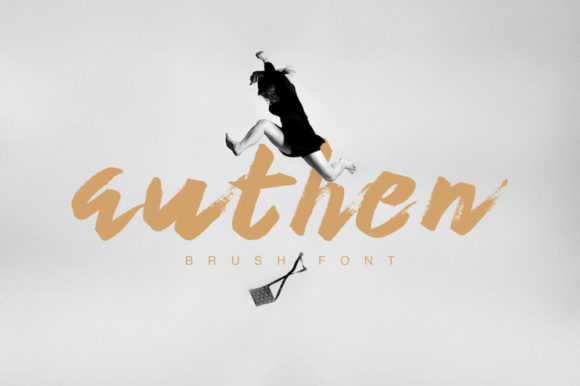
The Quest for the Perfect Font: Discovering Authen
I still remember the frustration of working on a design project, hours spent crafting the perfect layout, only to realize that the font I was using just wasn’t cutting it. The client wanted something that would give their brand an authentic, handcrafted feel, but I was struggling to find the right typeface. That’s when I stumbled upon Authen, a stylish display font that would change the game for me and my designs.
Authen: A Game-Changing Font
Authen is a stunning display font that can instantly elevate your designs with its authentic brush handcrafted feel. **It’s perfect for designers, crafters, and creative hobbyists** looking to add a personal touch to their work. With its unique, hand-crafted aesthetic, Authen can help you create designs that stand out from the crowd.
The Good: ✨
- Authentic brush handcrafted feel that adds a personal touch to designs ✅
- Stylish and eye-catching, perfect for display text and headlines ✨
- High-quality, crisp lines and curves that make it perfect for printing and digital use